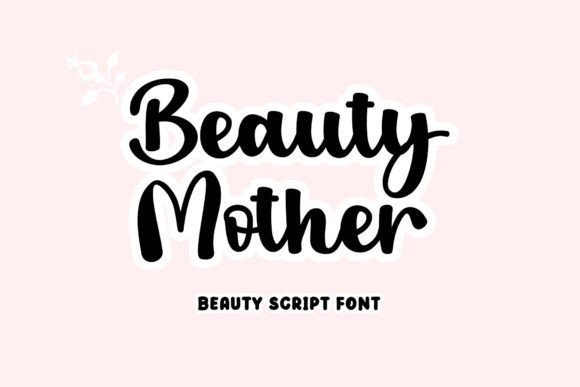
Introduction to Beauty Mother Font
Beauty Mother is a romantic and graceful calligraphy typeface.
You can use it for various purposes such as logos, wedding invitations, headings, t-shirts, letterhead, signage, labels, news, posters, badges, and so much more .
Key Features of Beauty Mother Font